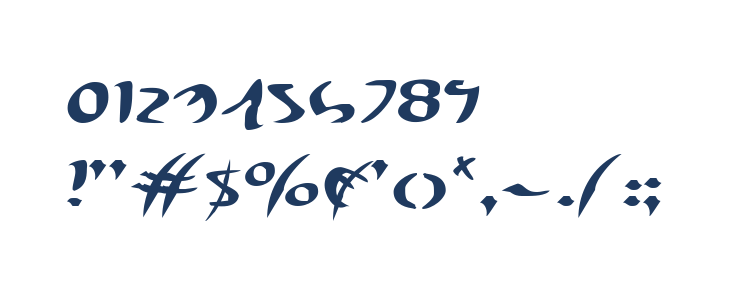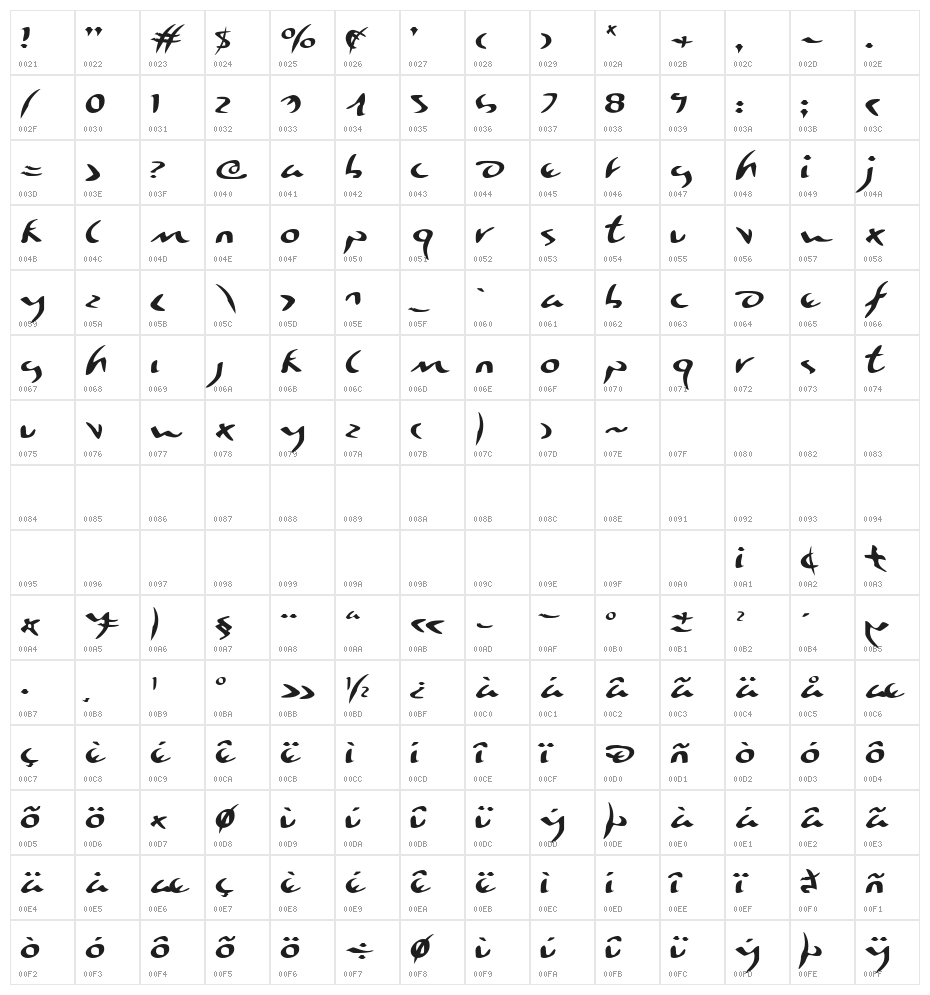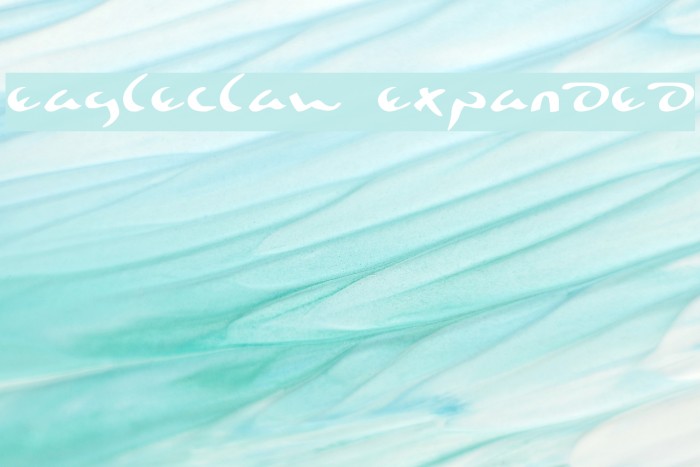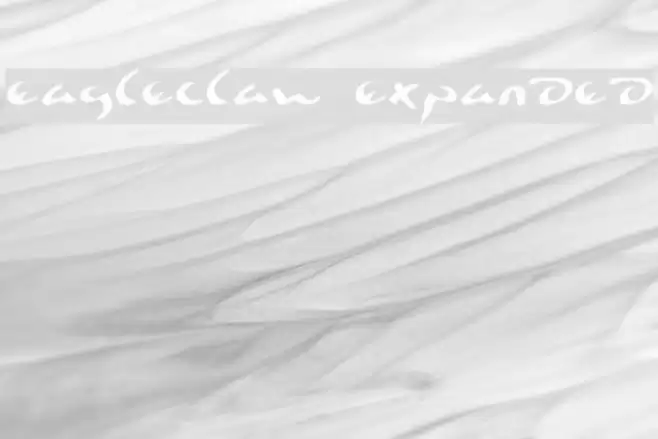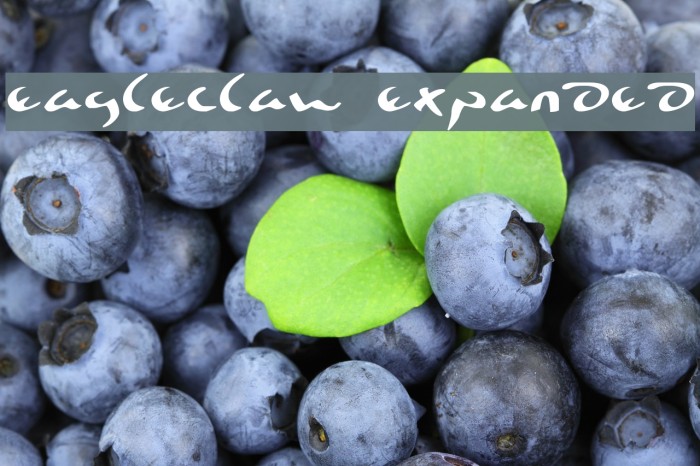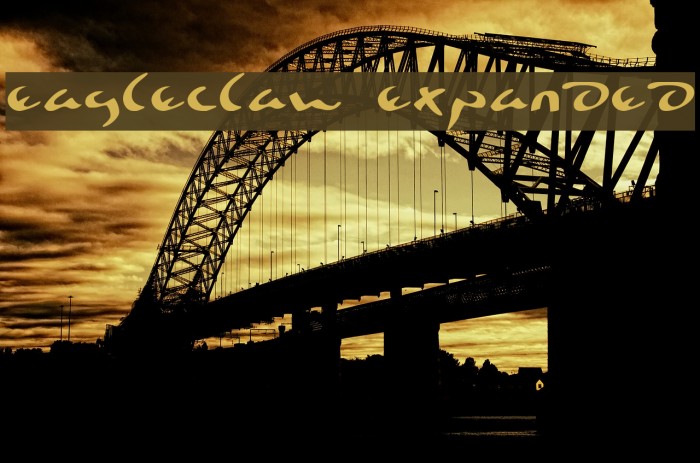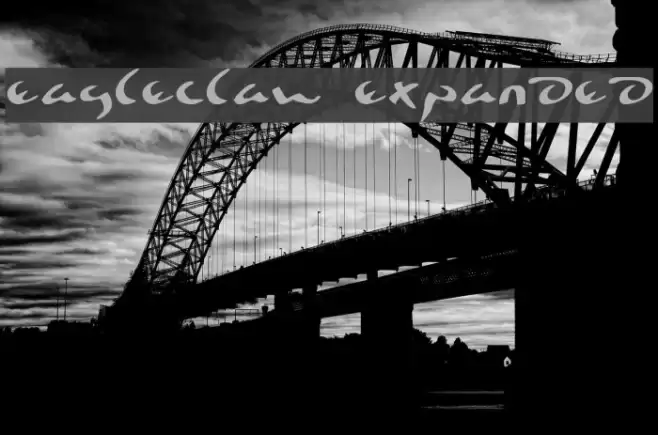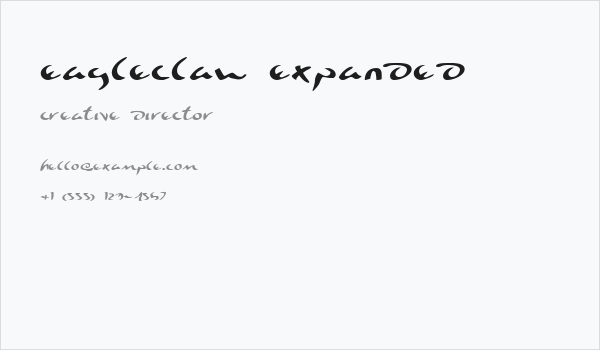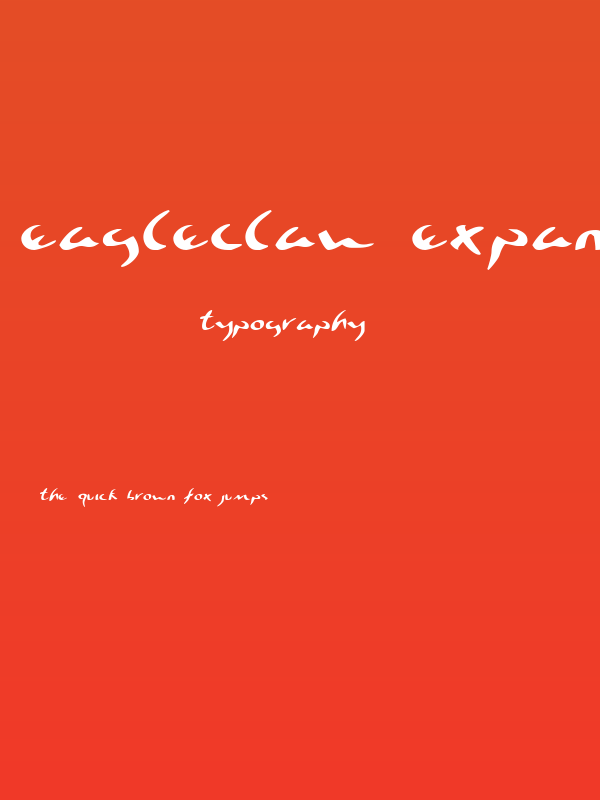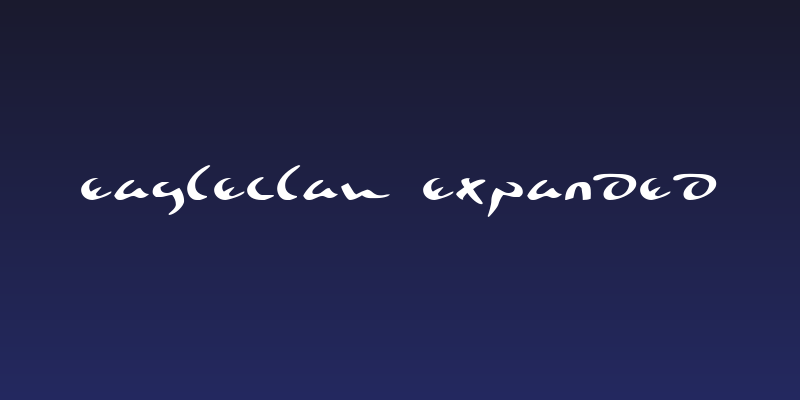
Eagleclaw Expanded Font
Eagleclaw Expanded Description
This font features a dynamic and bold script style with sharp, angular strokes that give it a fierce and energetic appearance. The characters are designed with a sense of movement, as if they are in motion, which adds to the overall dramatic effect. The uppercase and lowercase letters maintain a consistent style, with exaggerated curves and pointed edges that create a sense of urgency and intensity. The numerals and special characters follow the same design principles, ensuring a cohesive look across all elements. This font's unique style makes it stand out, making it suitable for projects that require a strong visual impact.
| Proposed Projects | Ideal for branding, posters, album covers, and any project requiring a bold, energetic typeface. |